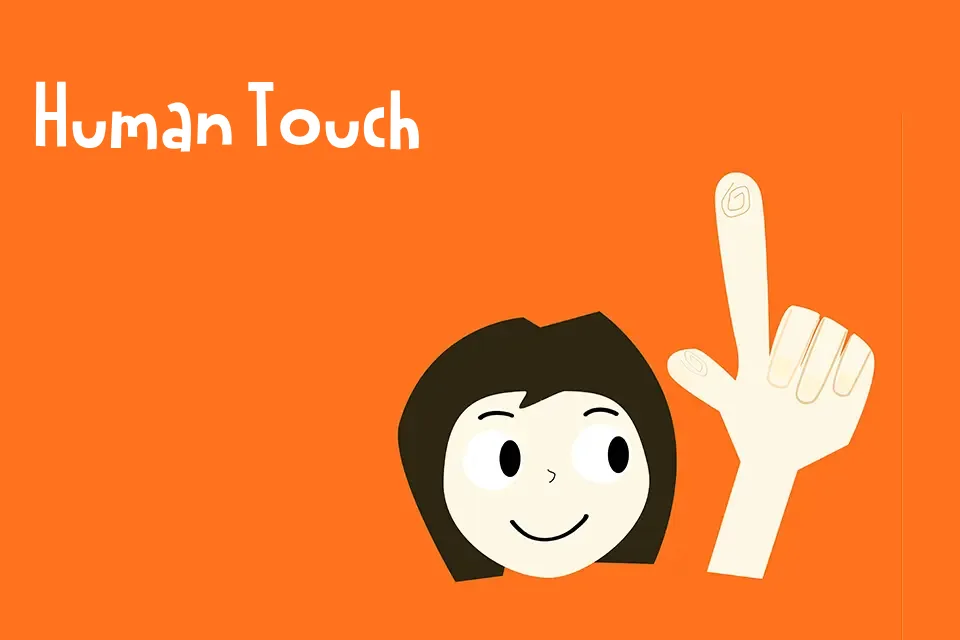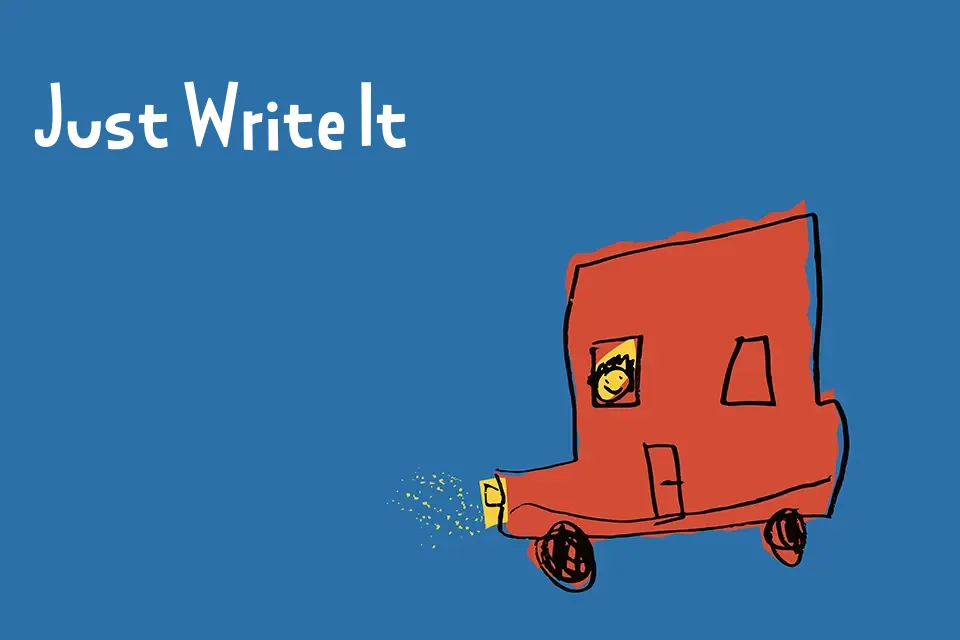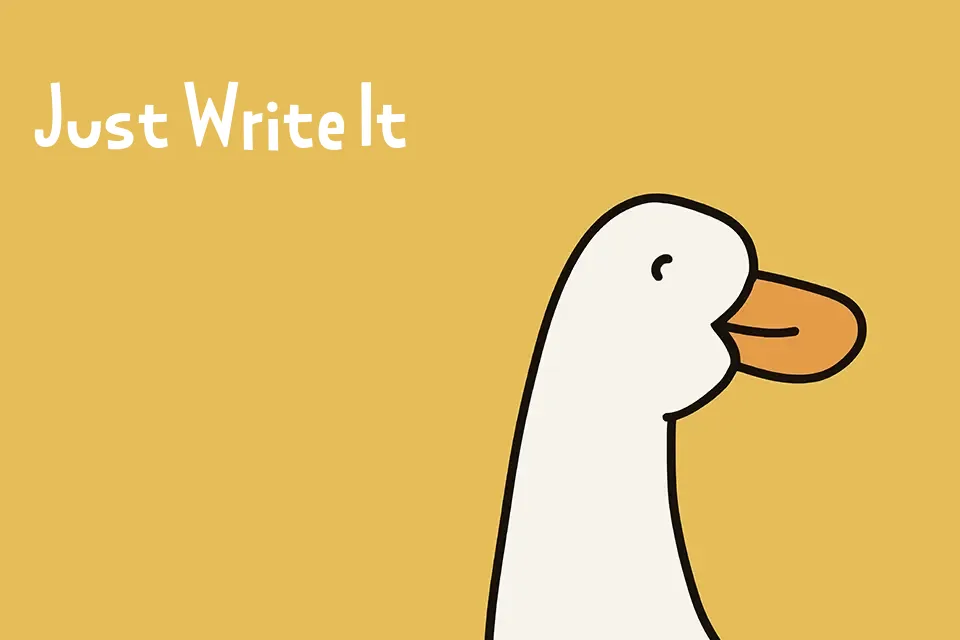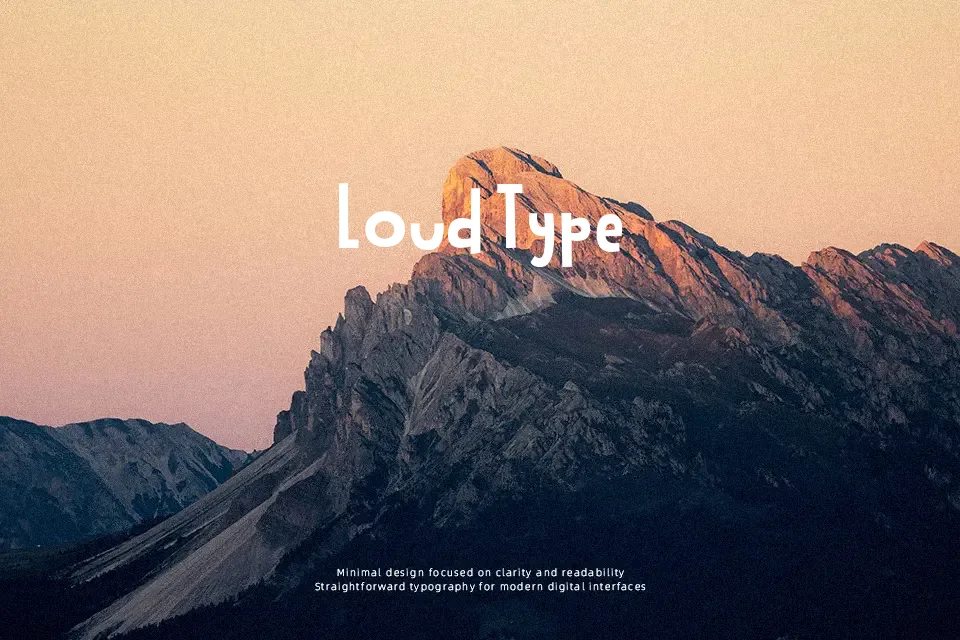
Satin Blues Font
Designed by Jakob Fischer
Satin Blues Font stands out with its lively, hand-lettered display construction that emphasizes bouncy rhythms and softly rounded strokes. The letterforms feature irregular baselines and asymmetrical proportions, giving titles an approachable, hand-crafted charm. Spacing is comfortably compact, maintaining strong cohesion across short phrases and bold headlines. While this cheerful aesthetic excels in children’s book layouts, merchandise graphics, and animated video titles, the heavily stylized forms become difficult to decipher in small captions or body text. For graphic designers, the distinctive contours provide immediate visual warmth, though layout artists should restrict its application to prominent display sizes to preserve legibility.
children’s book cover titles
toy product packaging
cartoon merchandise graphics
animated video title cards
continuous paragraph reading
dense technical documentation
corporate financial reports
mobile interface body text
Perfect for branding, headline, and kids, with a creative and cartoon style.